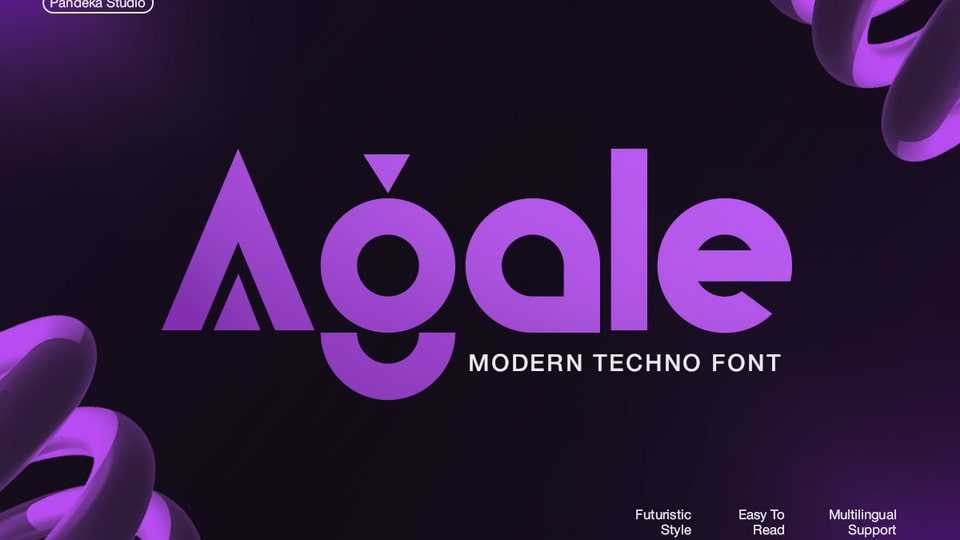
Download Agale font, a modern techno display typeface that fuses futuristic style with sharp geometric elegance. Its bold letterforms and distinct modular construction make it ideal for high-tech branding.